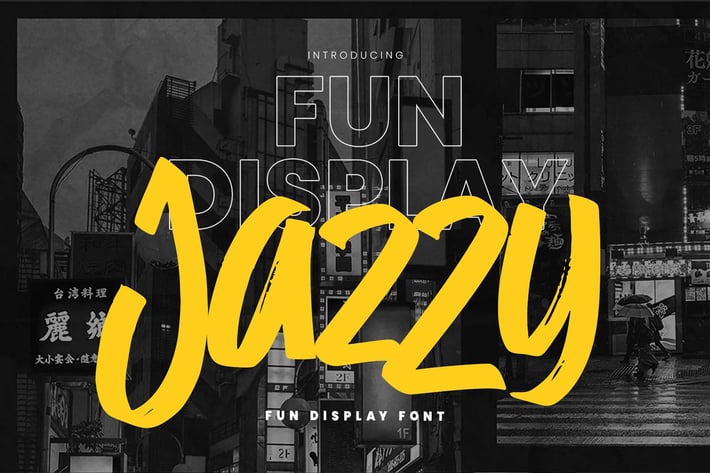
Jazzy - Fun Display Font
Hello Everyone, introduce our new product Font Jazzy This Is Fun Display Font.This is a Textured Natural Style and classy style.
This font Jazzy is great for your next creative project such as logos, printed quotes, invitations, cards, product packaging, headers, Logotype, Letterhead, Poster, Design this font is great for your creative projects such as watermark on photography, and perfect for logos & branding, invitation,advertisements,product designs, stationery, wedding designs,label ,product packaging, special events or anything that need handwritting taste.
That is has charming, authentic and relaxed characteristic more natural look to your text.